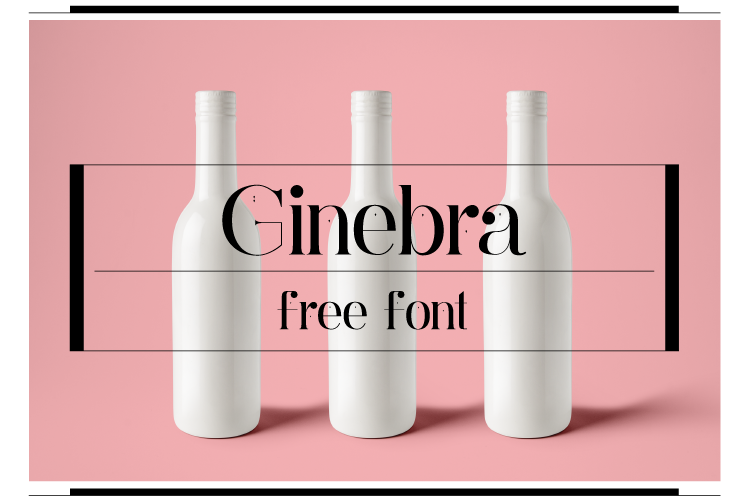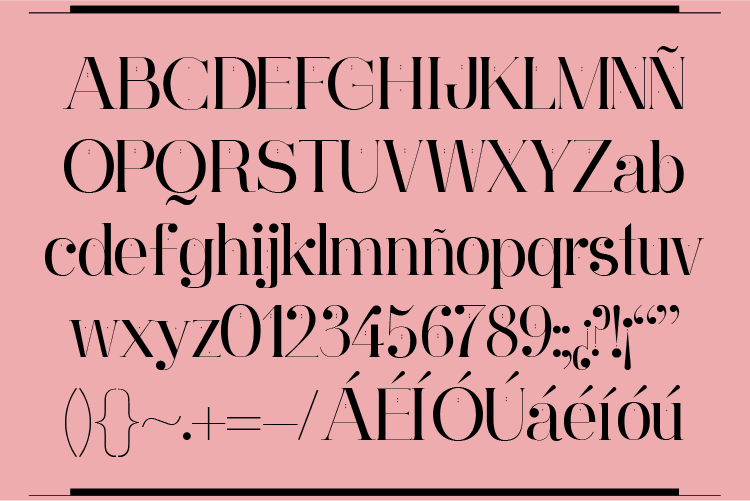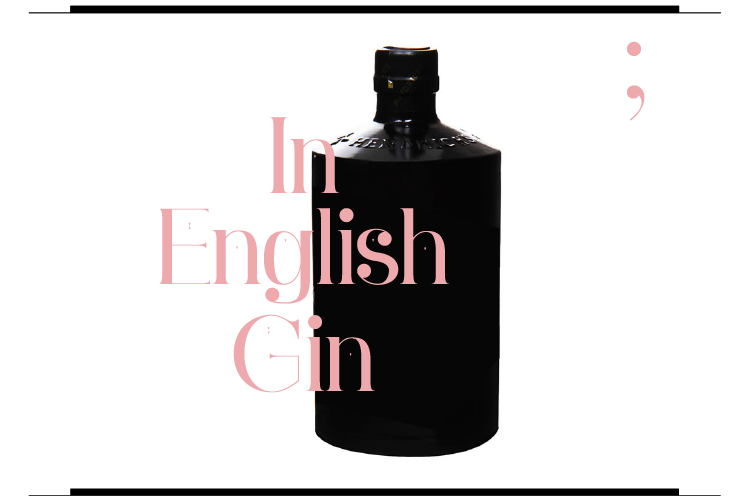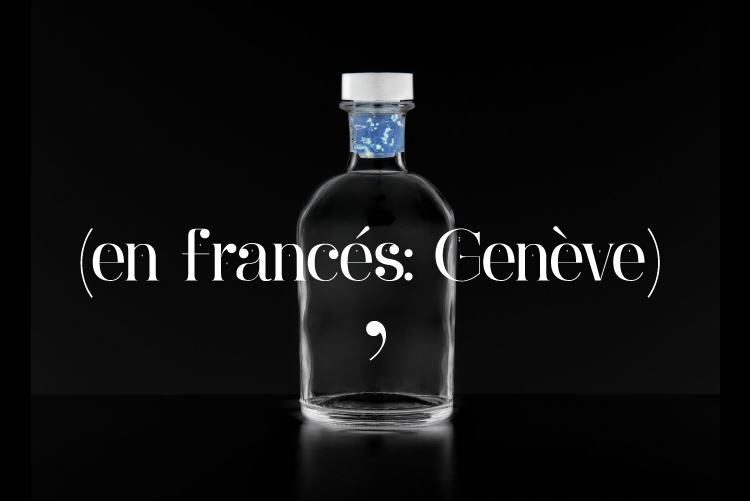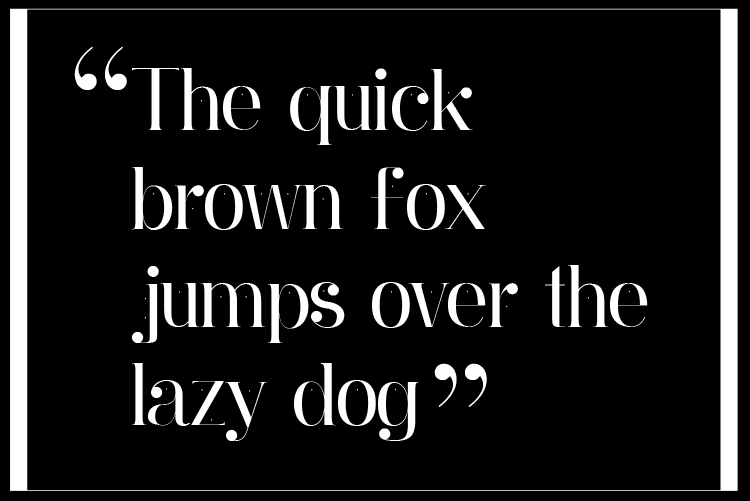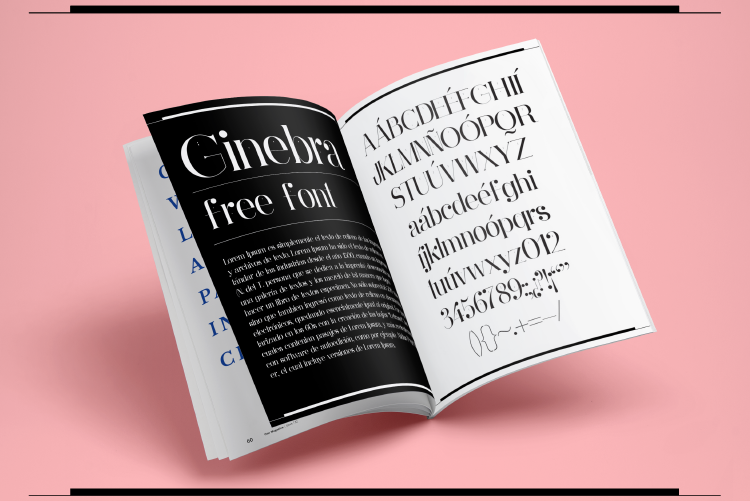
Designed by Yai Salinas from Buenos Aires, Argentina Ginebra Font is the perfect choice if you’re looking to add a bit of freshness to your latest projects. Ginebra is great for packaging, T-shirts, menus, logos, branding and more!